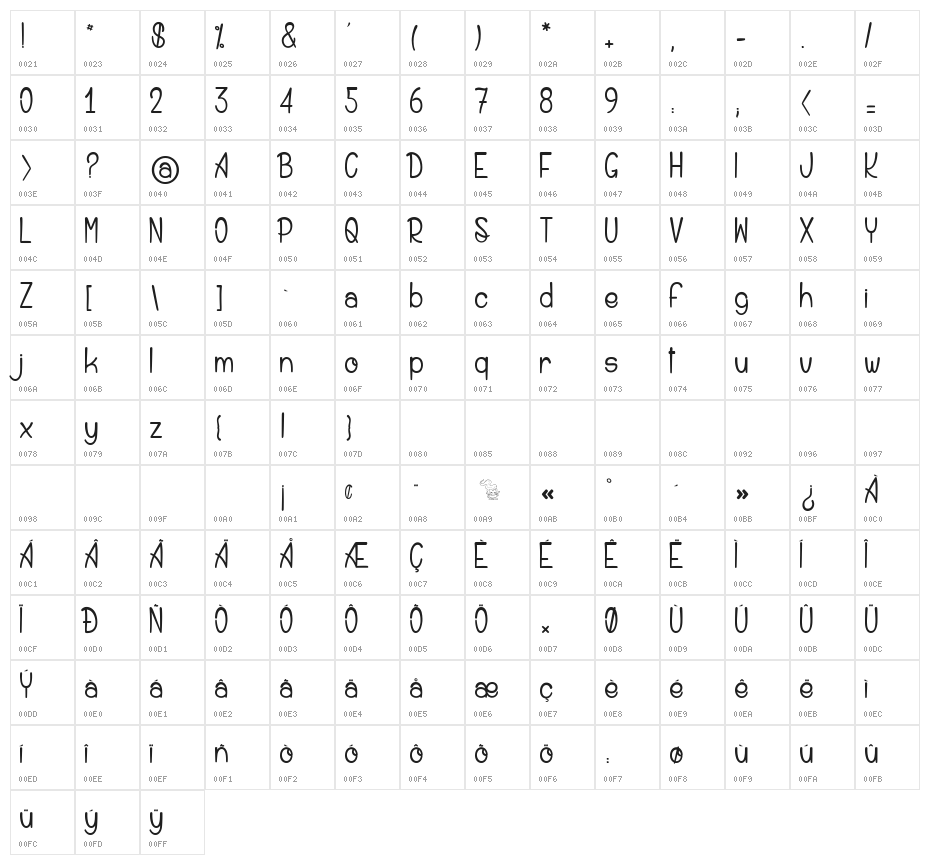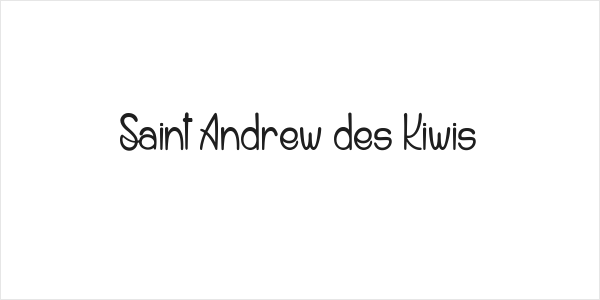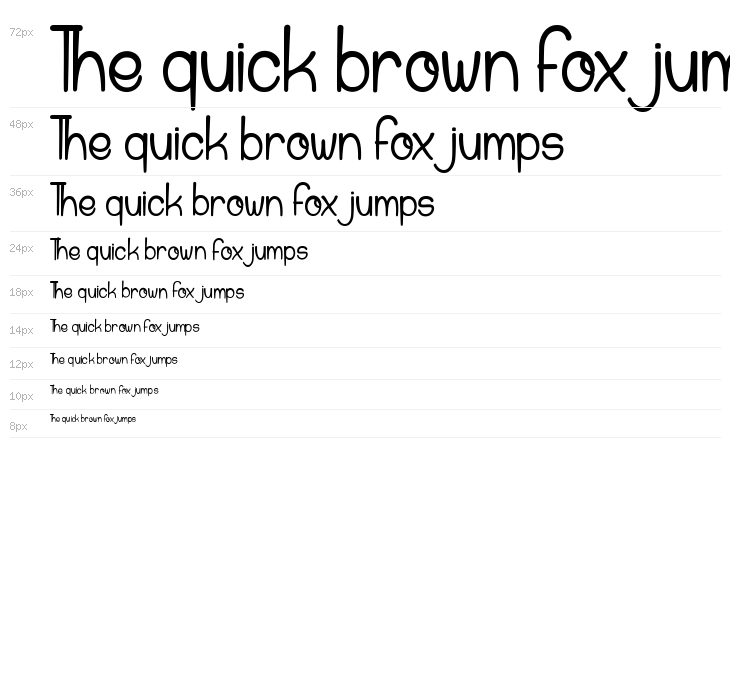
Saint Andrew des Kiwis Font
Saint Andrew des Kiwis Description
This playful and whimsical font features a handwritten style with a casual and friendly appearance. The letters are rounded and slightly irregular, giving it a unique charm. The uppercase letters are bold and prominent, while the lowercase letters maintain a consistent flow with a slightly narrower form. Numbers and special characters are designed to match the overall style, ensuring a cohesive look. The font's informal nature makes it suitable for projects that require a touch of personality and creativity.
| Overall Style | Whimsical |
| Proposed Projects | Ideal for children's books, greeting cards, playful branding, and creative posters. |